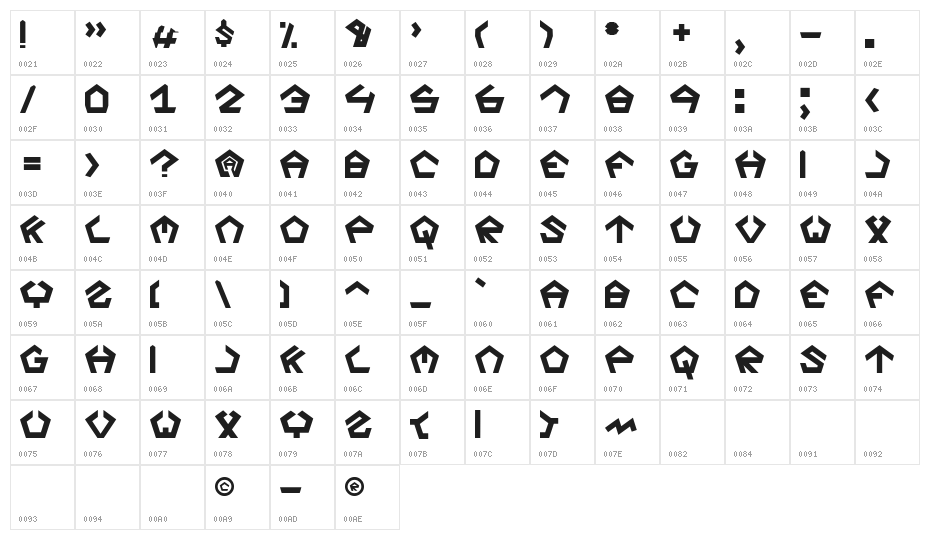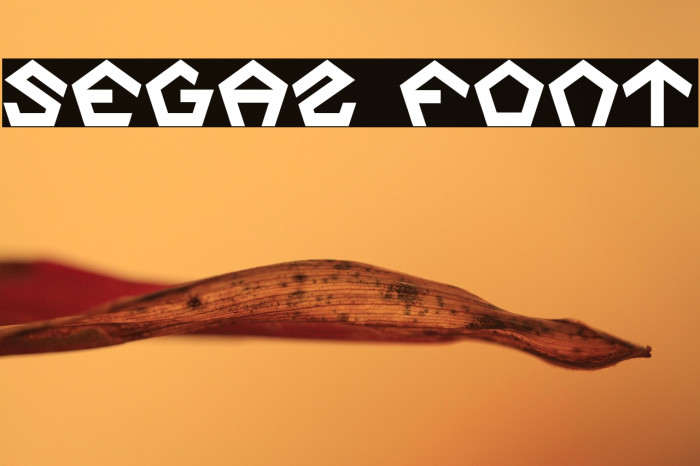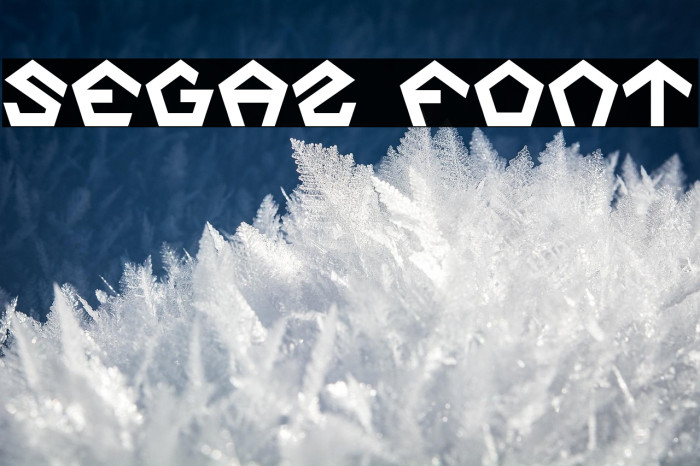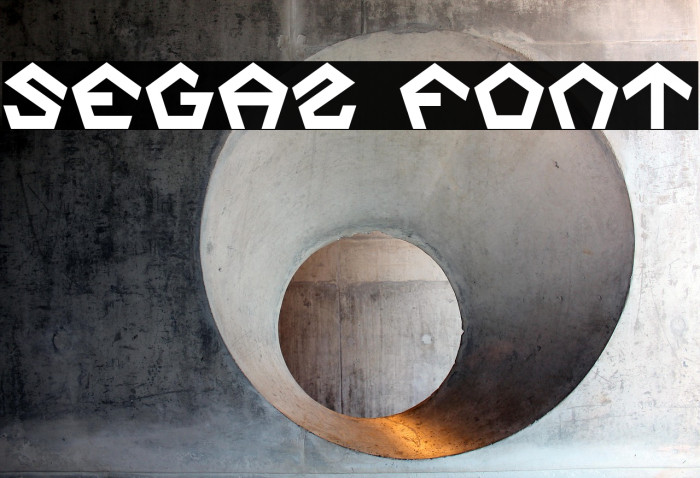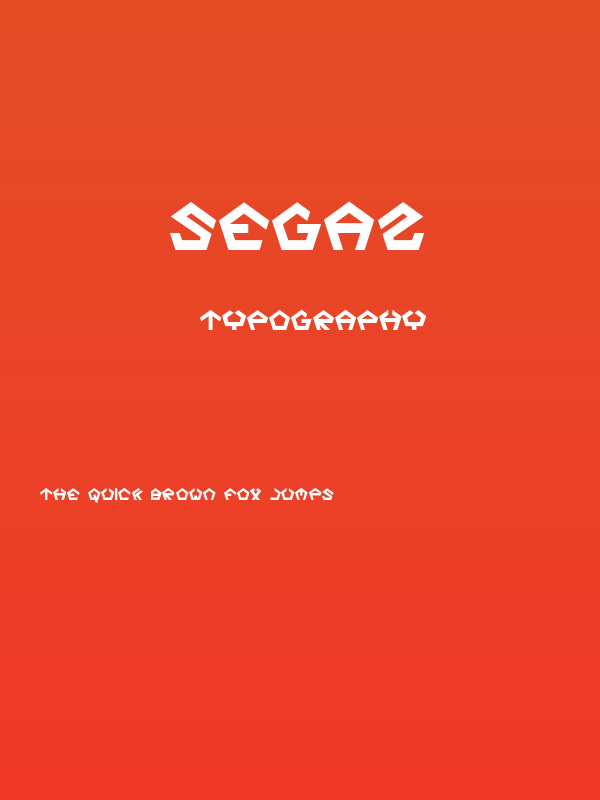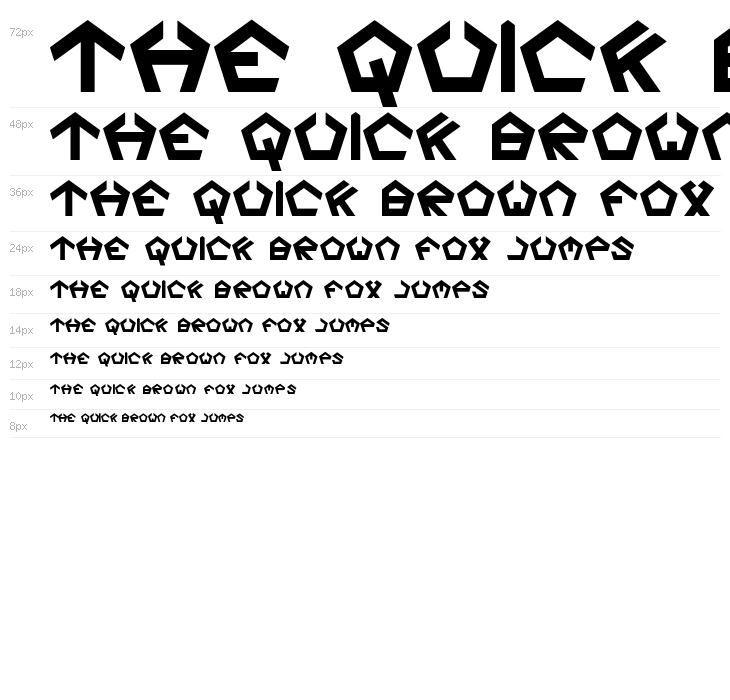
Segaz Font
Segaz Description
This font features a bold, geometric design with sharp angles and a futuristic aesthetic. The characters are constructed with thick, straight lines and angular cuts, creating a sense of movement and modernity. The uppercase and lowercase letters maintain a consistent style, enhancing readability while preserving a unique visual impact. Numbers and special characters follow the same design principles, ensuring uniformity across all elements. This font's distinct style makes it suitable for eye-catching designs that require a modern and edgy look.
| Proposed Projects | Ideal for sci-fi themed projects, video game titles, tech branding, and modern posters. |